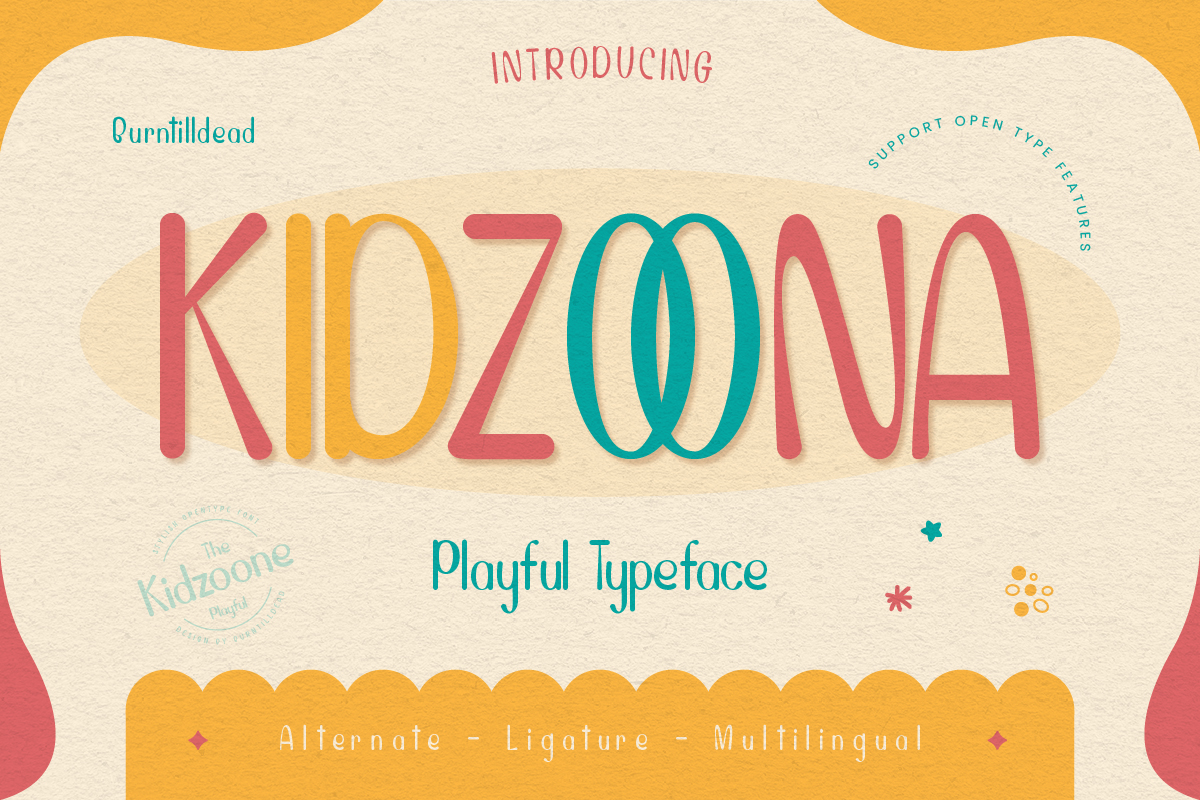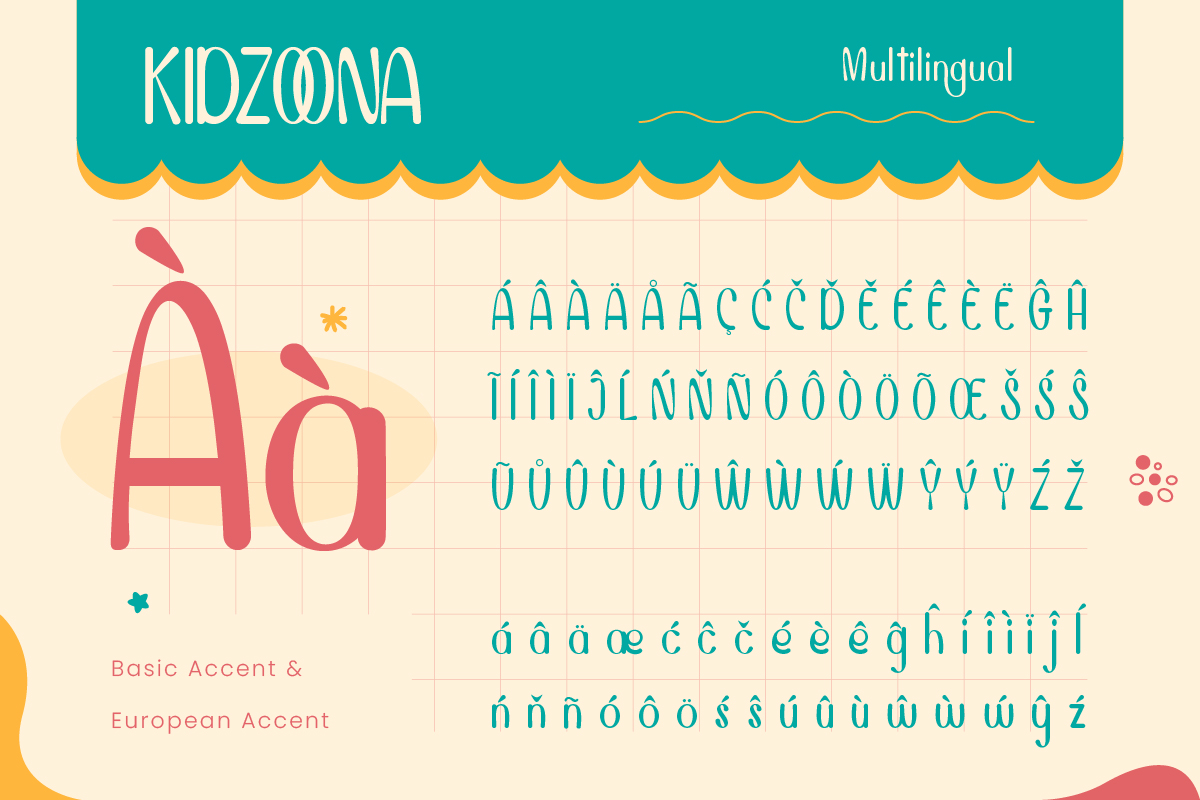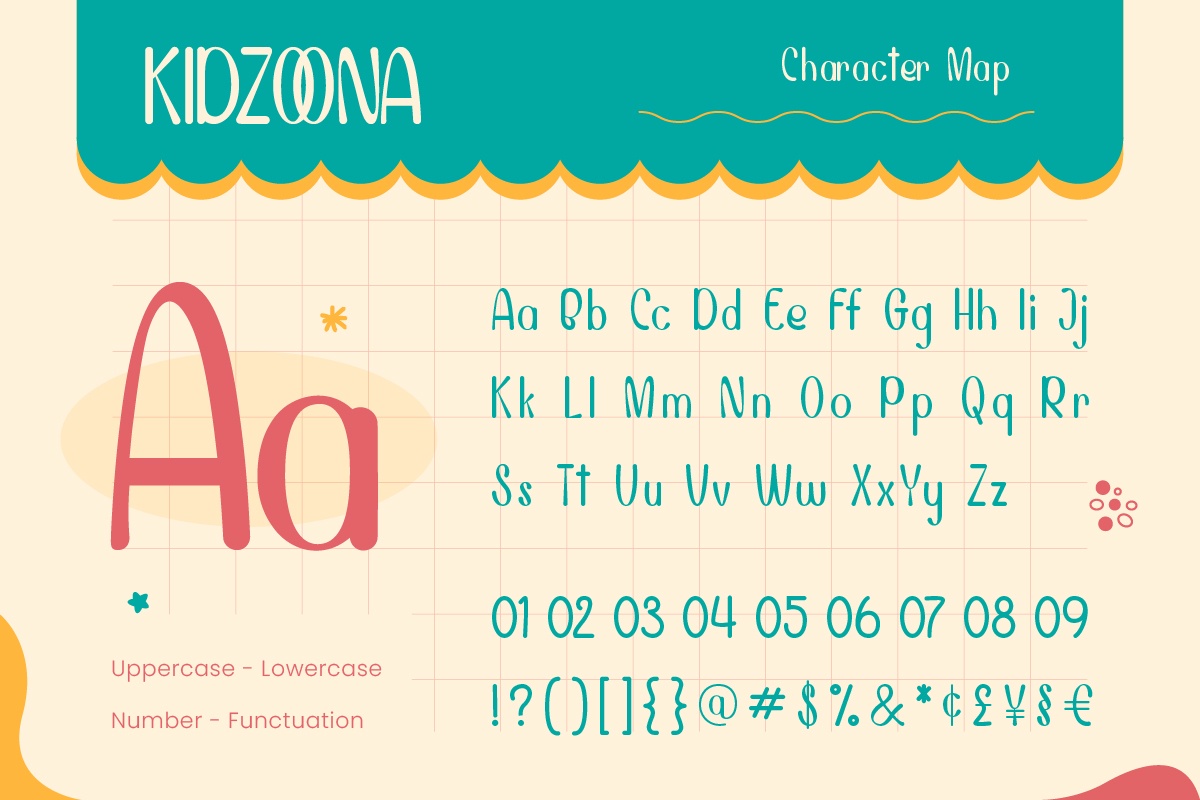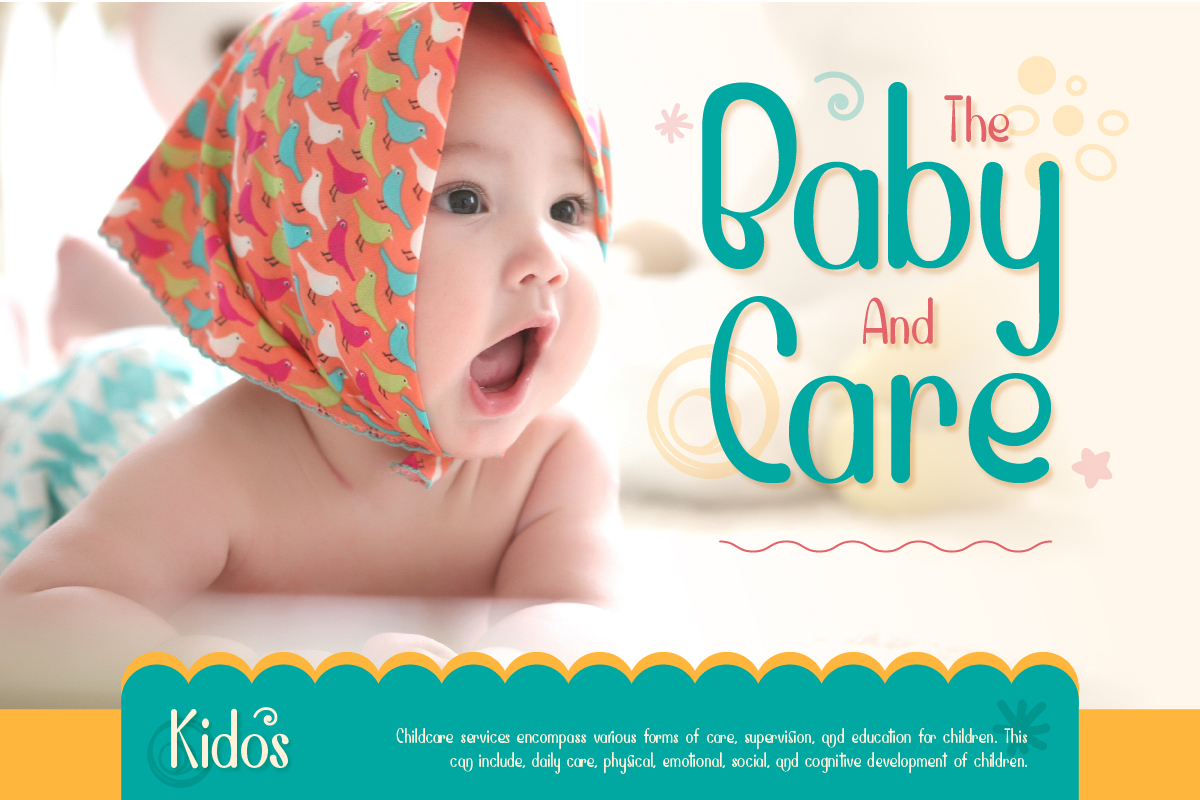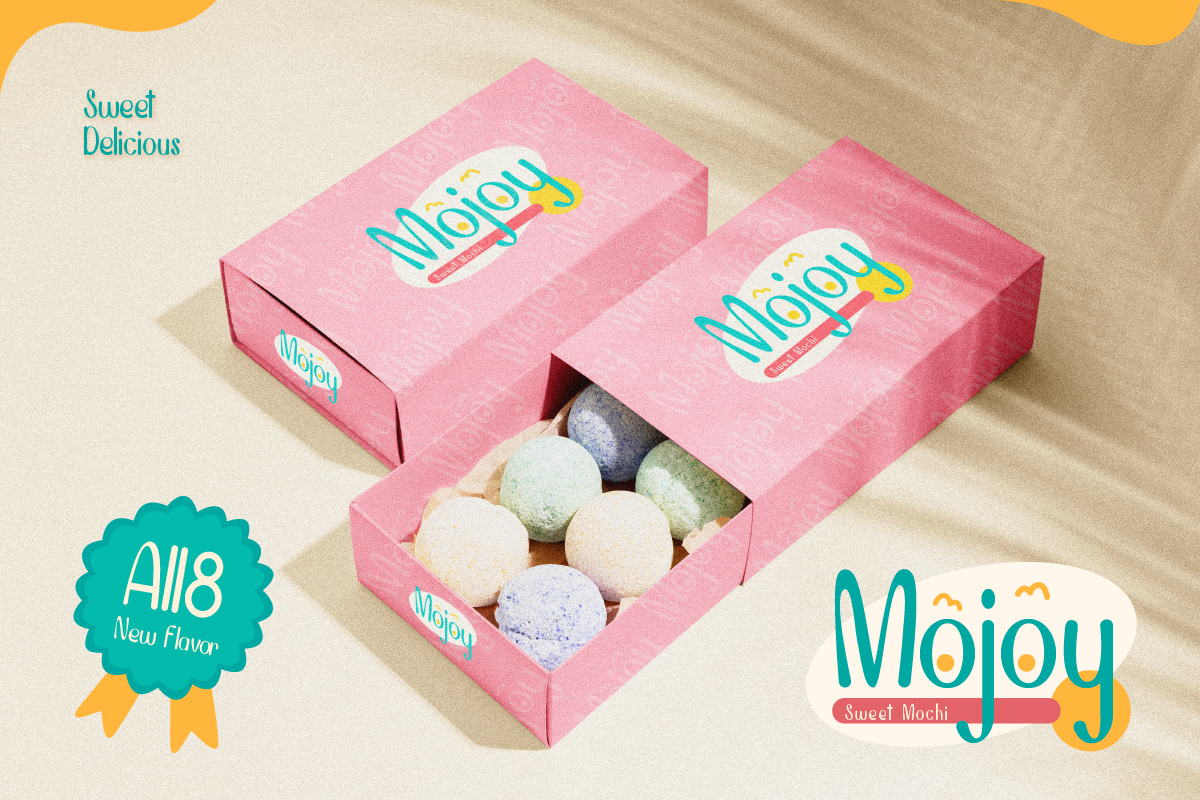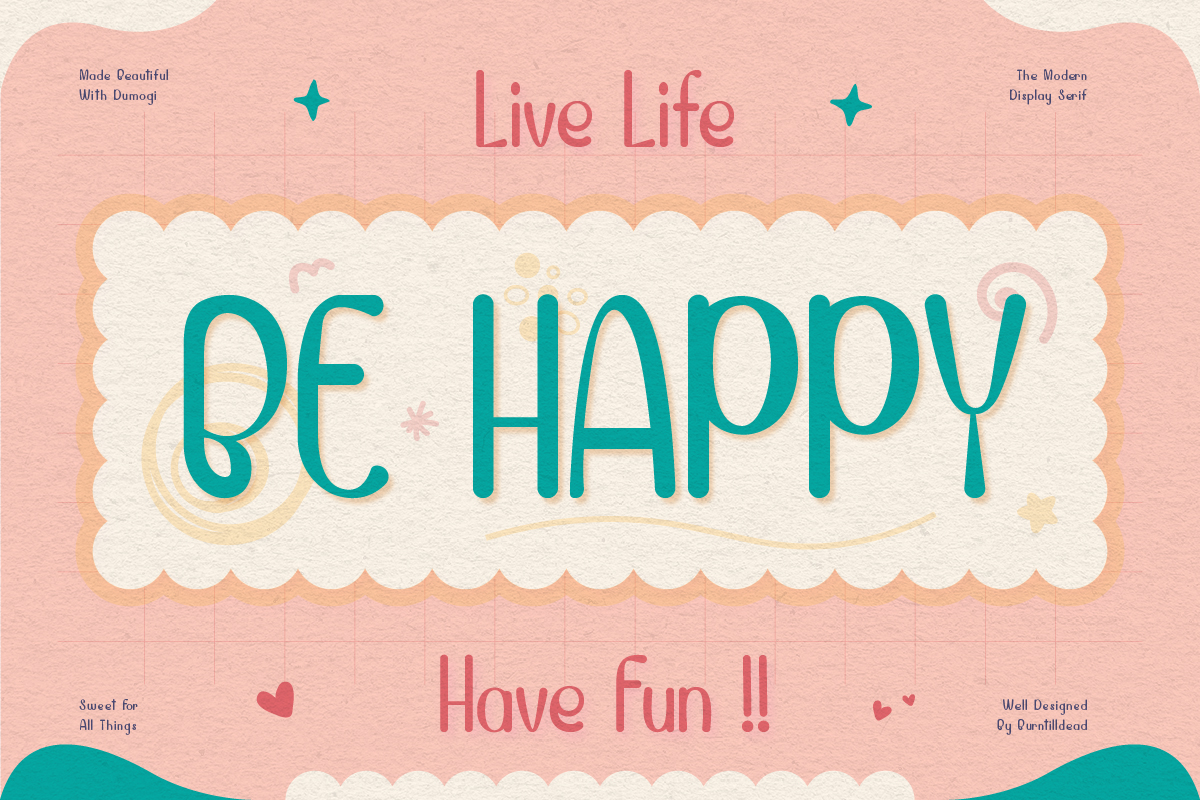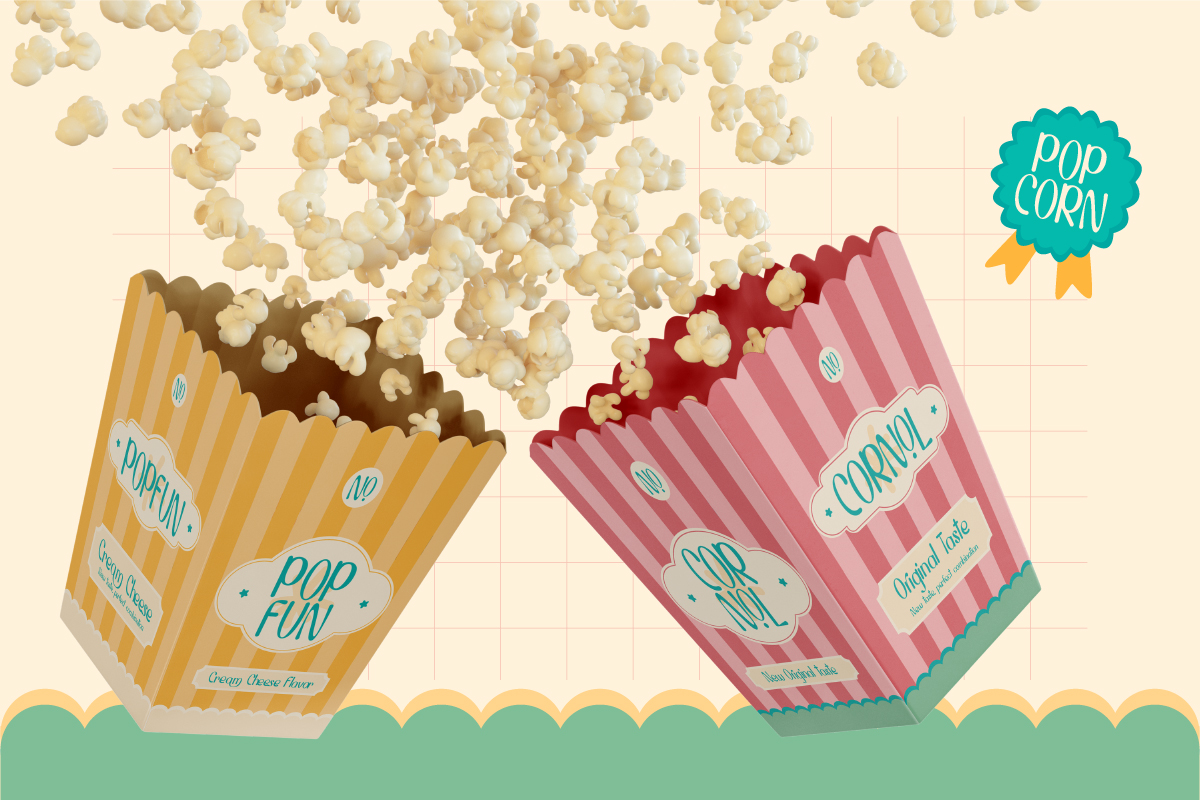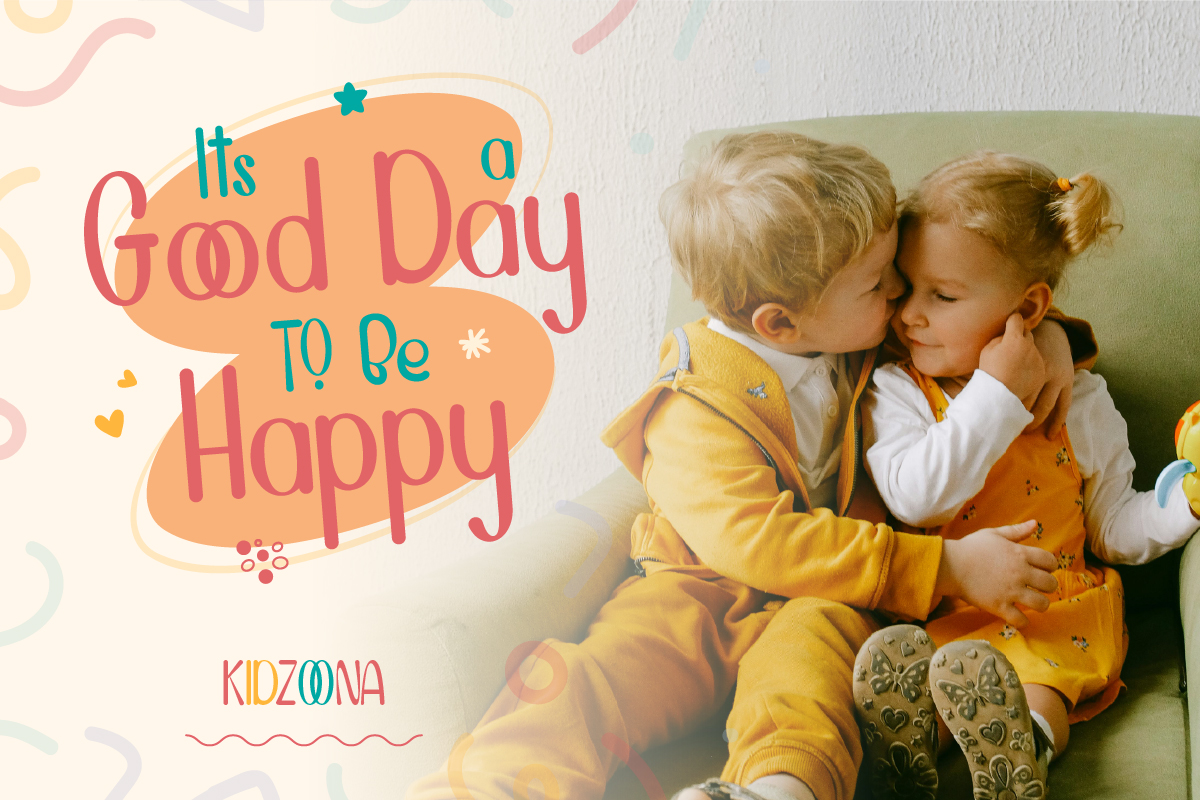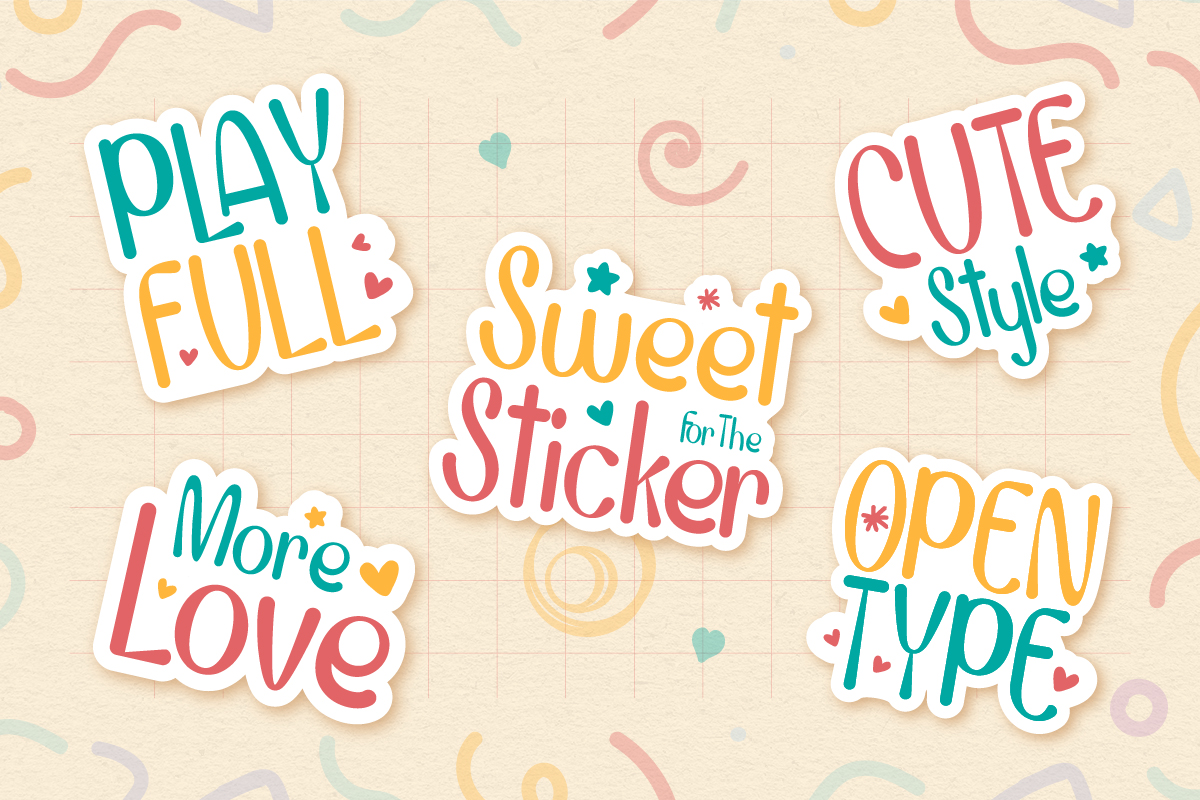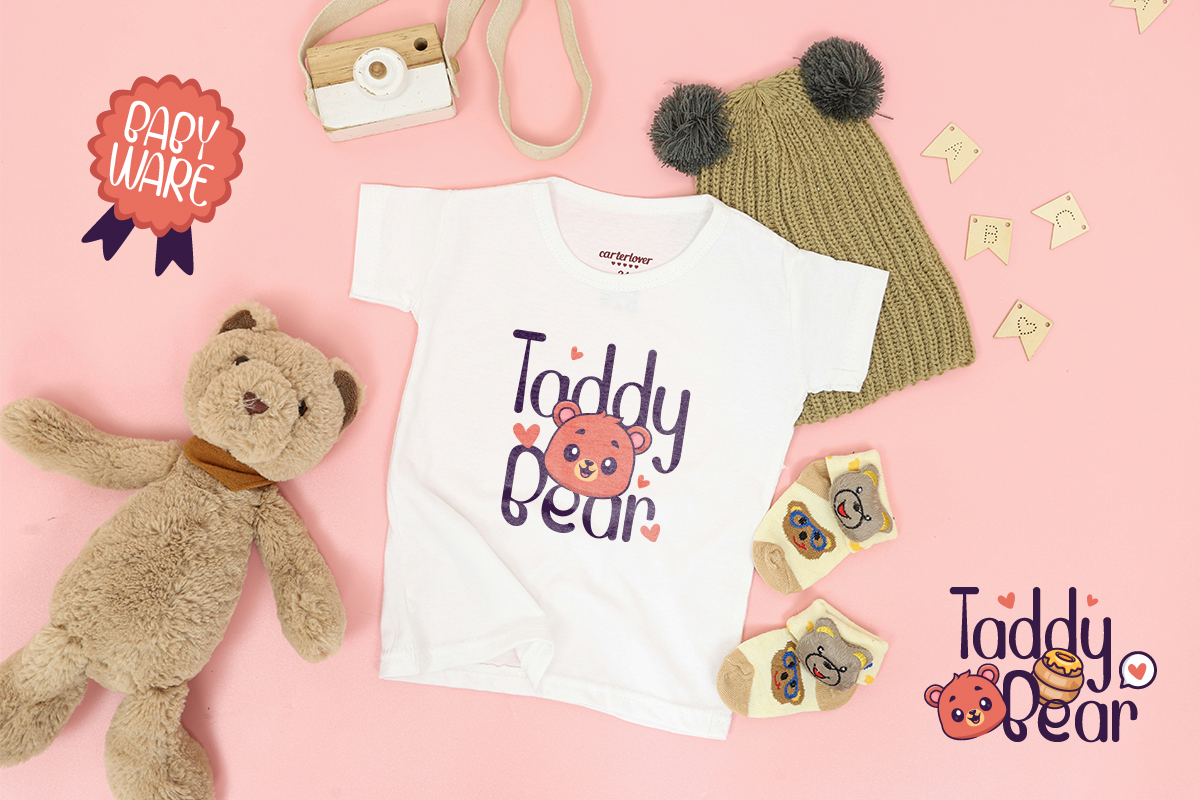
Kidzoona
byBurn Till Dead Studio
Let’s have fun with Kidzoona, a handwriting with cheerful vibes. Really playful typeface for any sweet or cute theme concept, illustration posters, stickers, fun graphics and more. Make your design happy and cheerful vibes ;D
This font have many ligature & opentype feature. The font really bring a good statement for your logo design and can be the image of a design.
• A – Z set (Uppercase & Lowercase)
• Number
• Punctuation
• Alternates
• Ligatures
• Multilingual